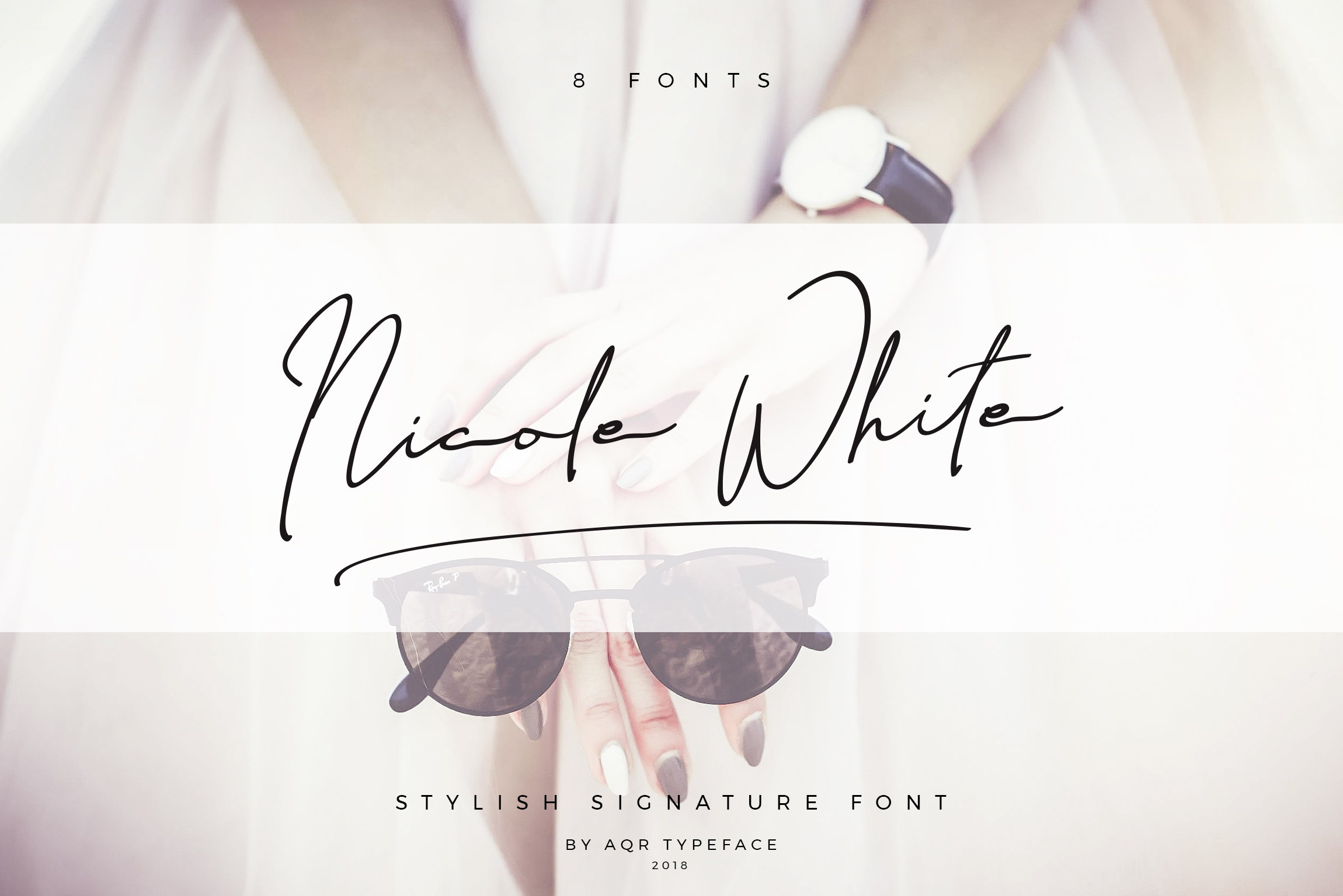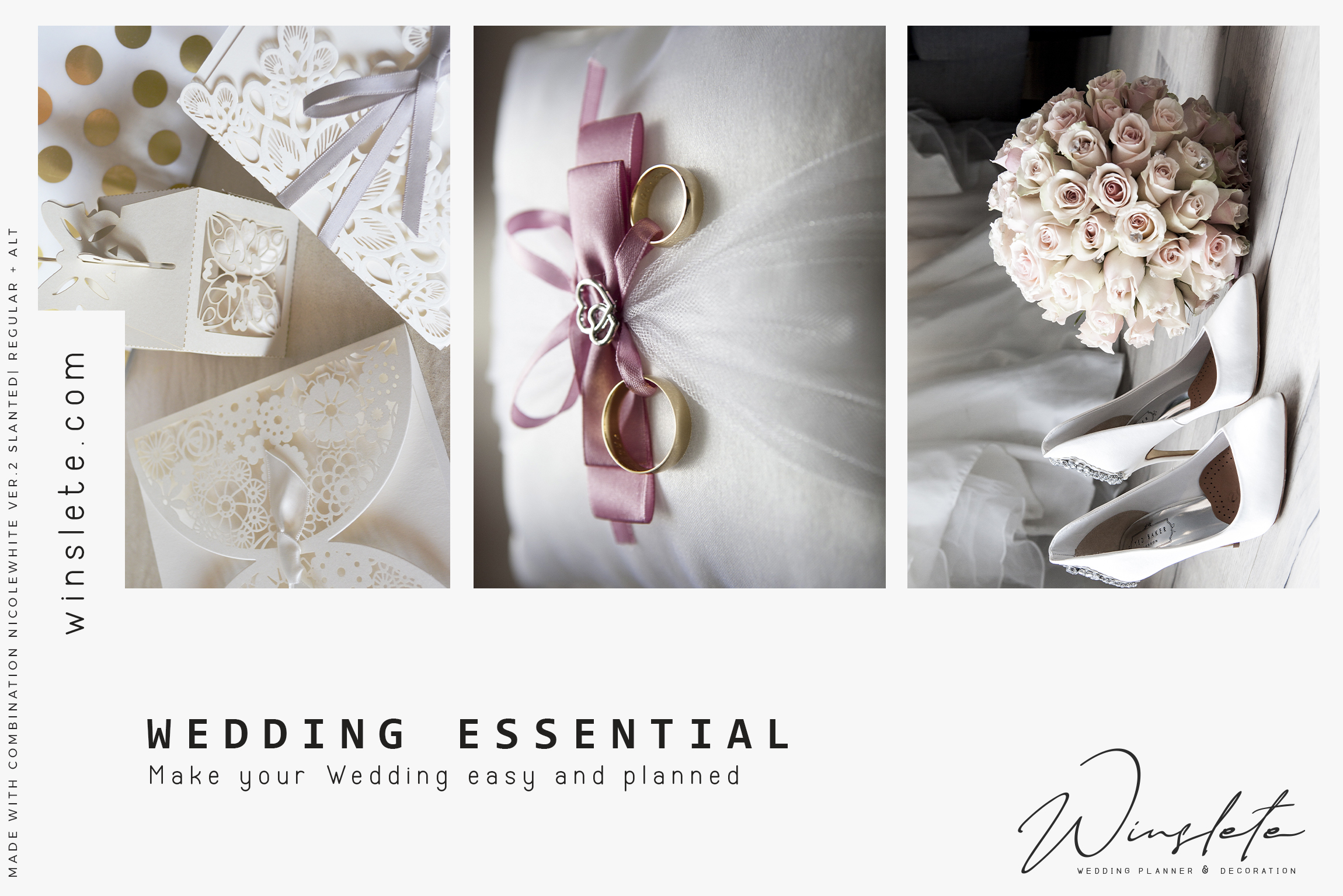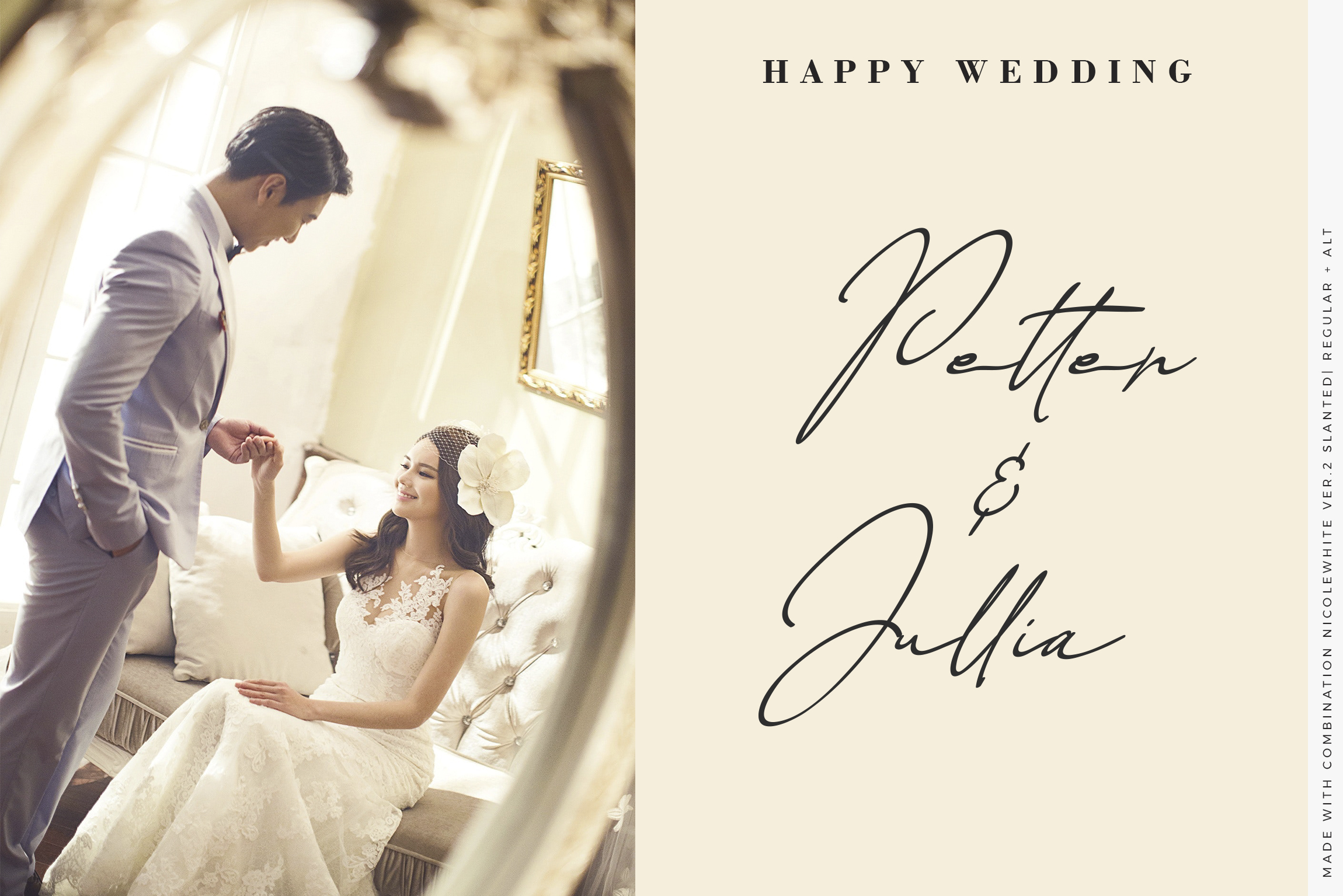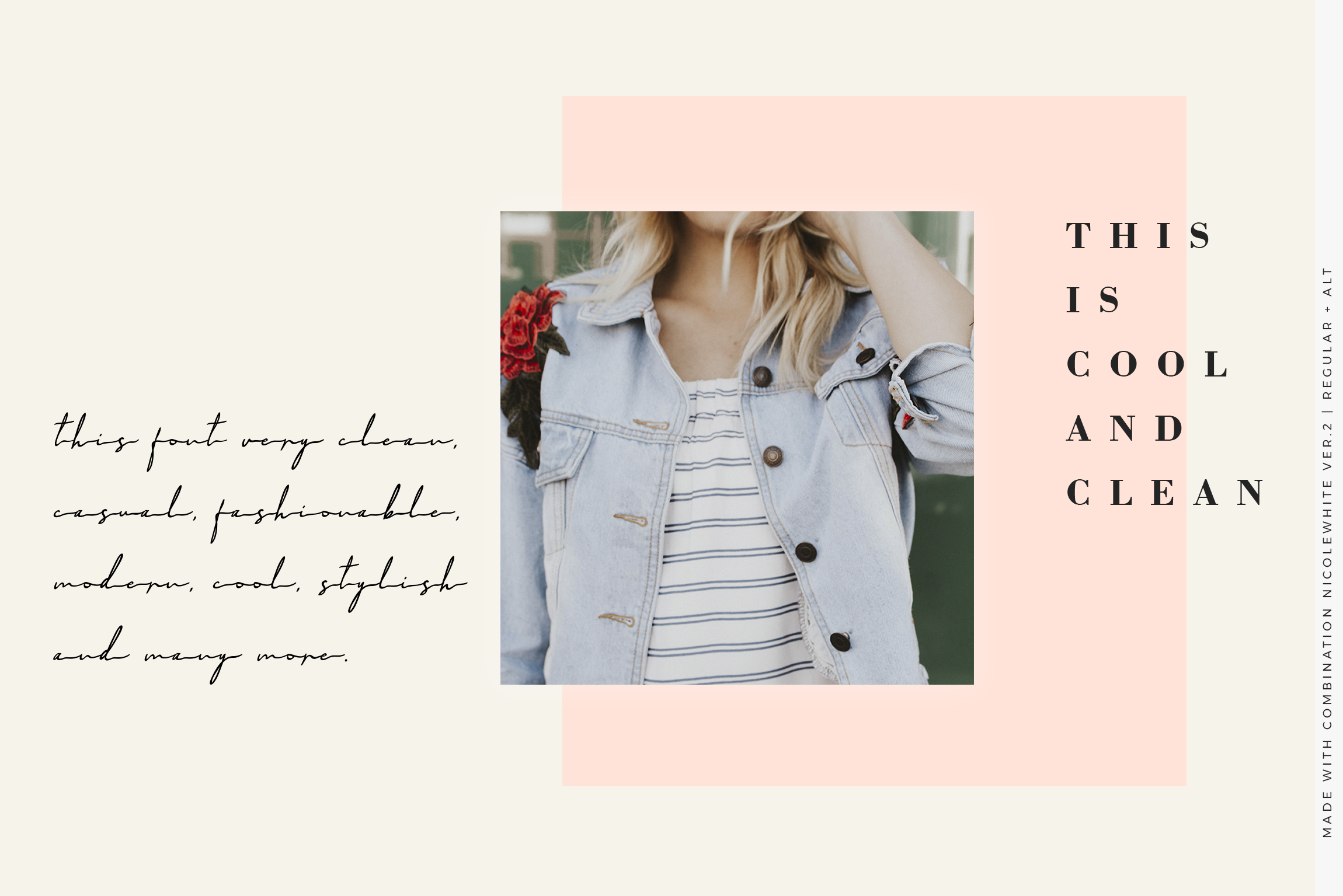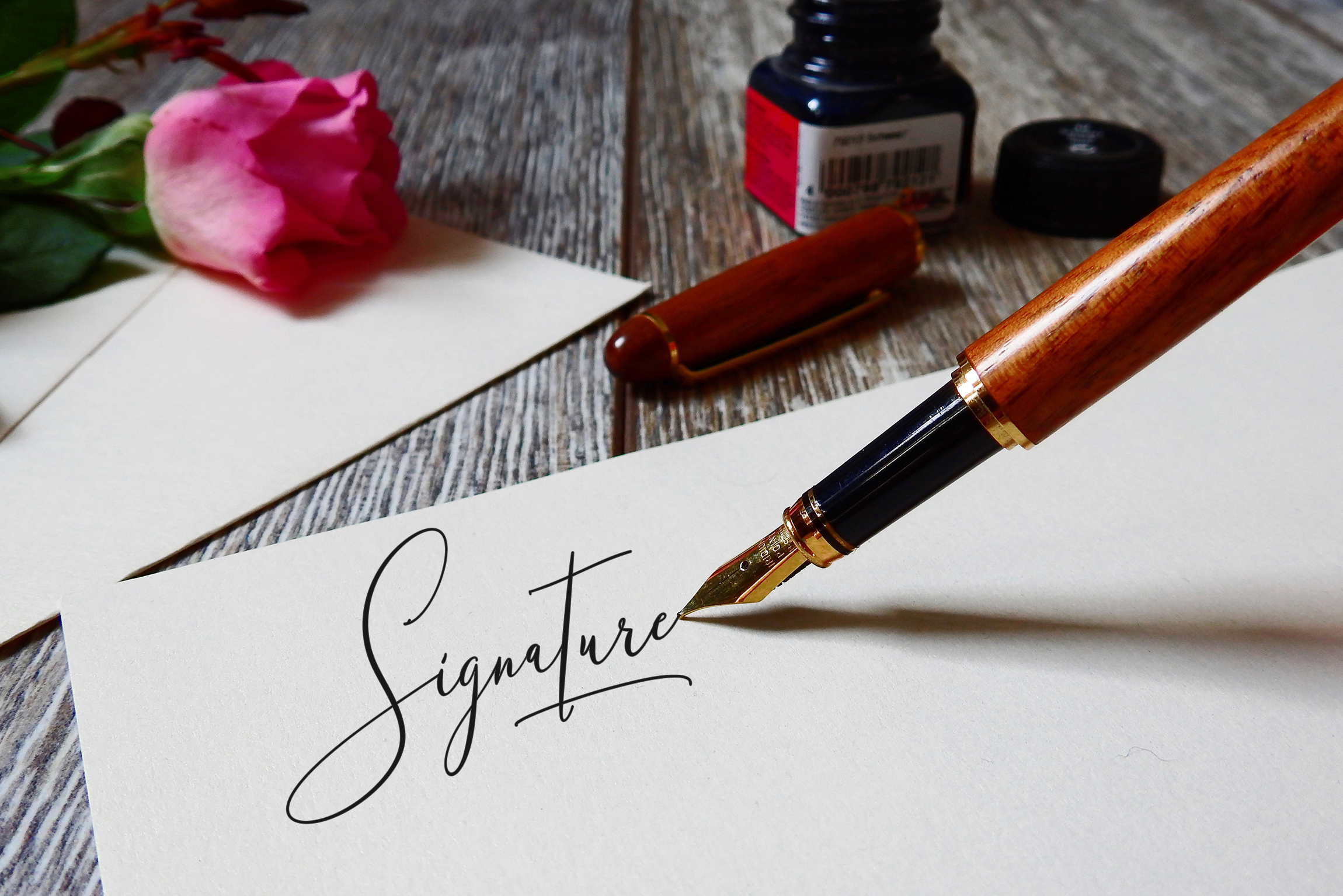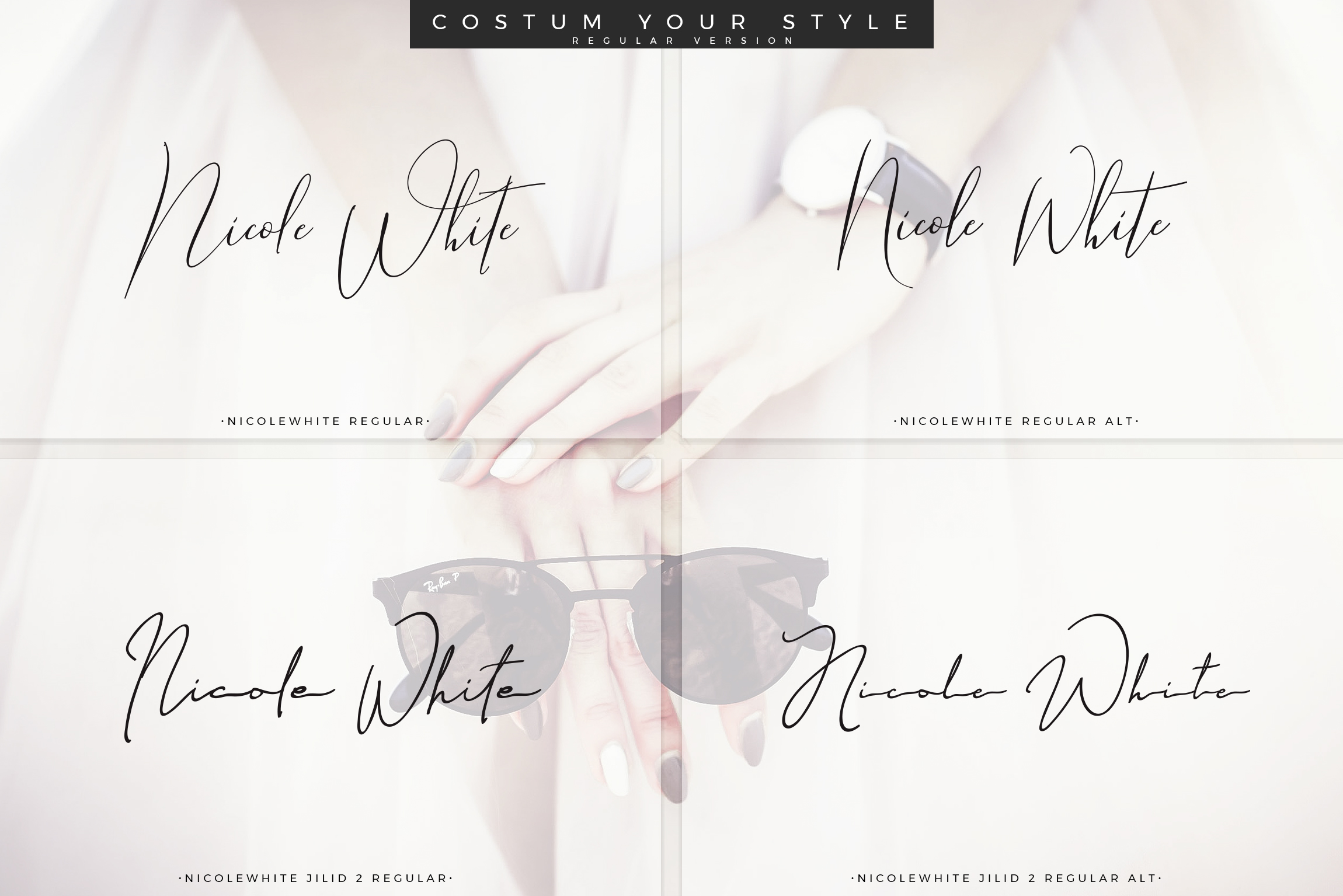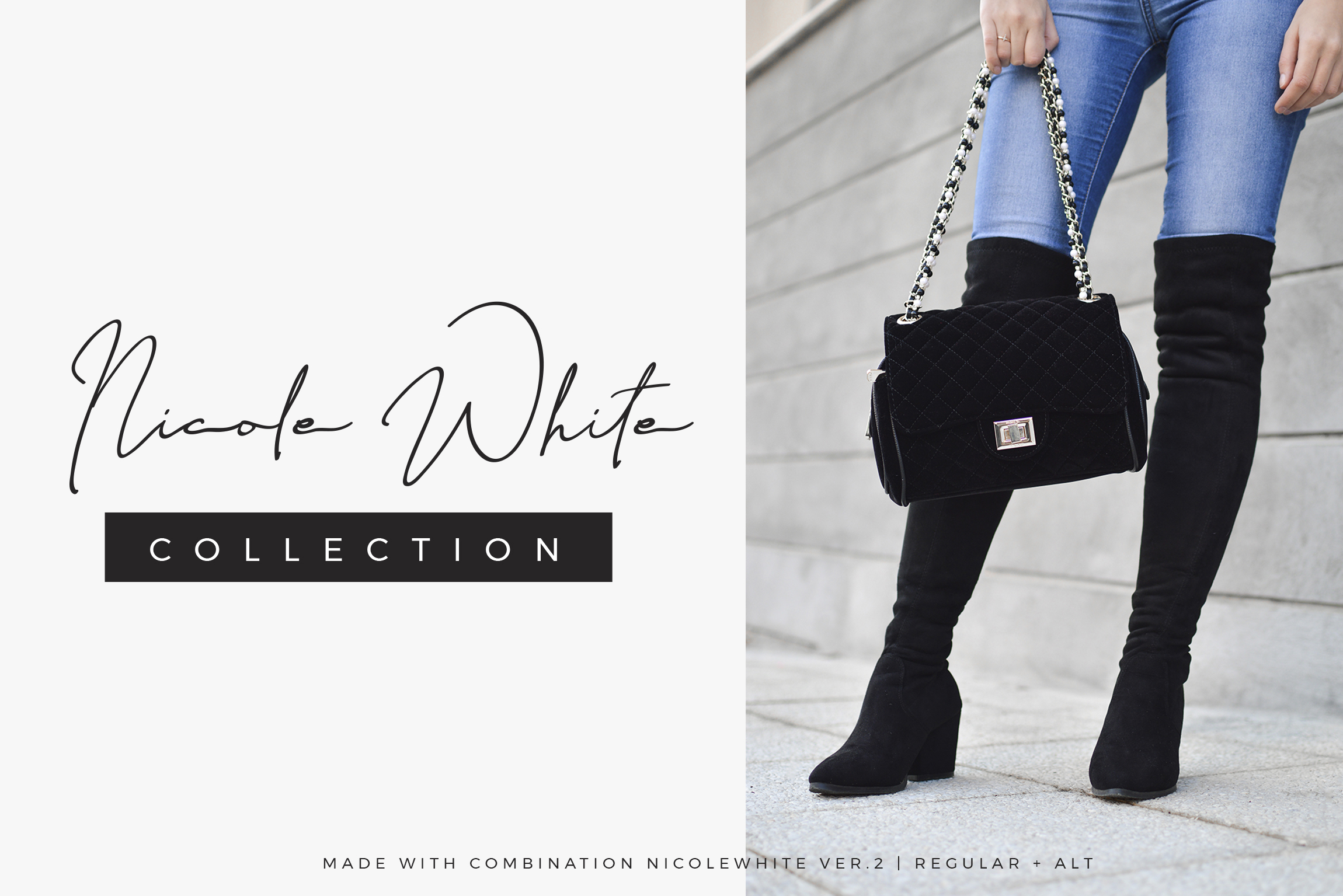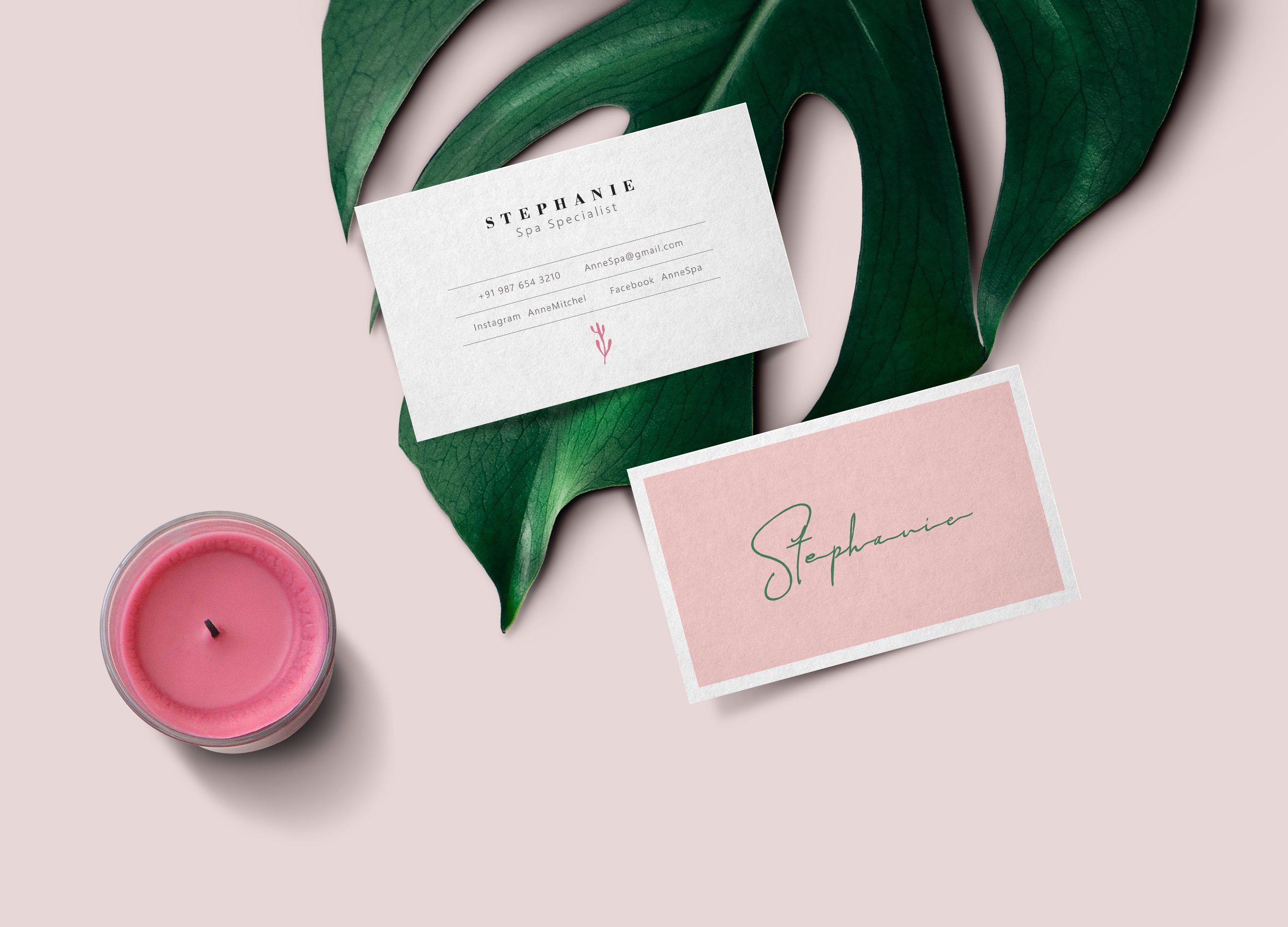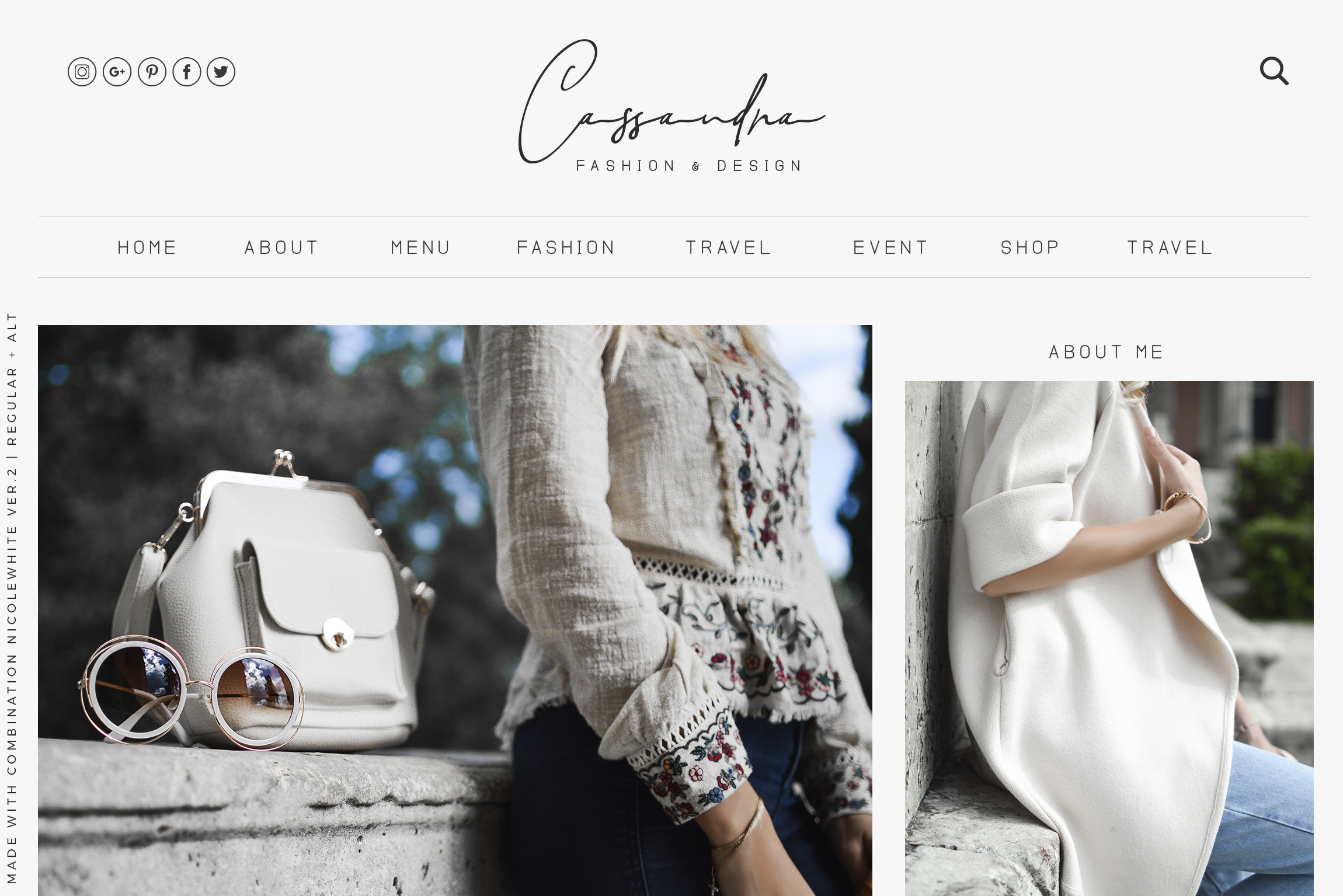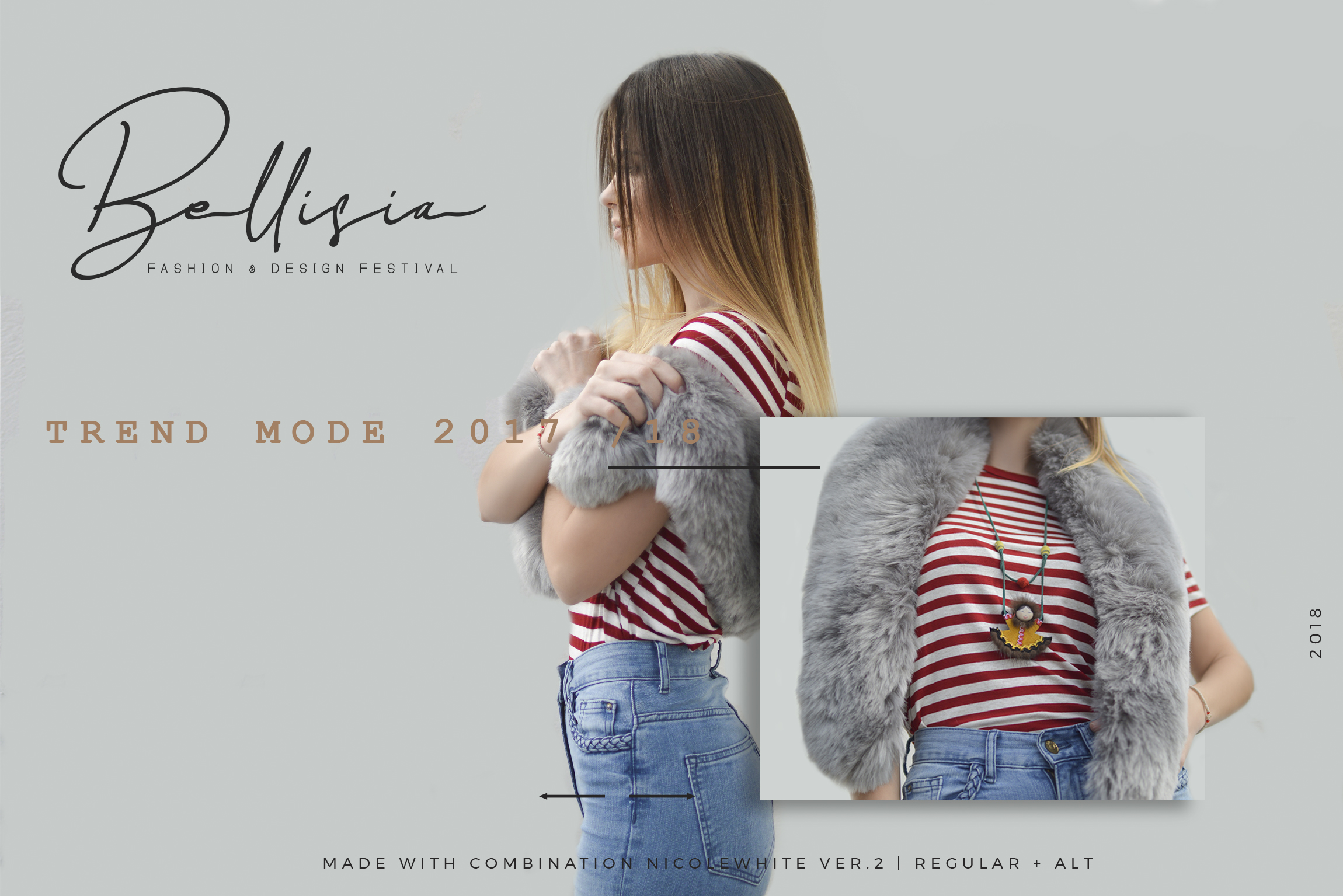
Nicole White Font
About Nicole White Font
Nicole White is a beautiful and natural looking signature font, suitable for use in a wide range of creative projects and styles. This font is a great way to add a touch of femininity and grace.